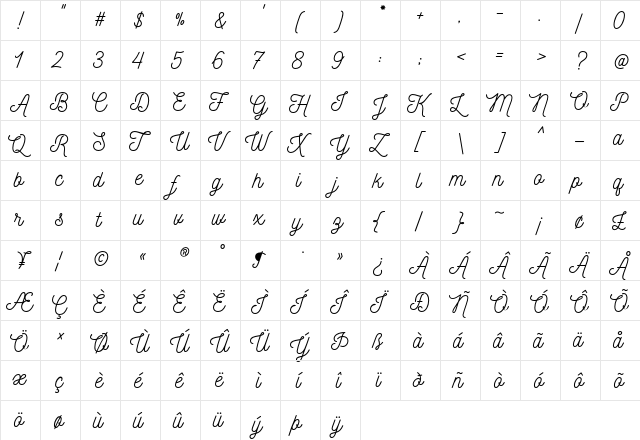
Nickainley Normal
Design Context for Nickainley Typeface
Nickainley is a composed and adaptable typeface that performs quietly and consistently across a wide range of design contexts.